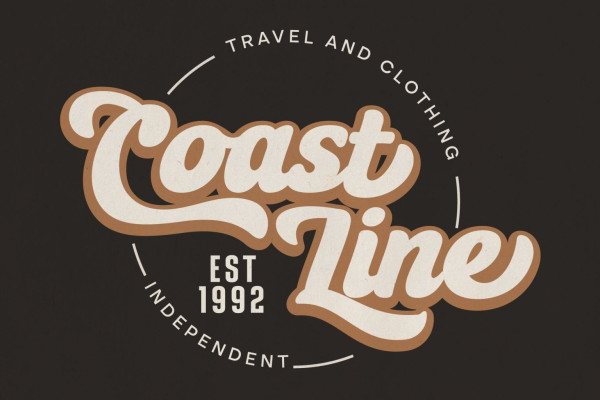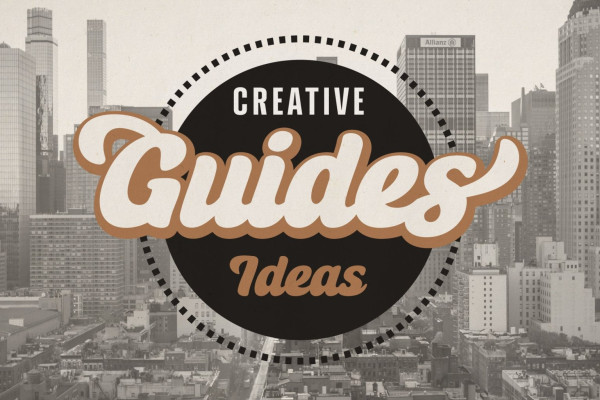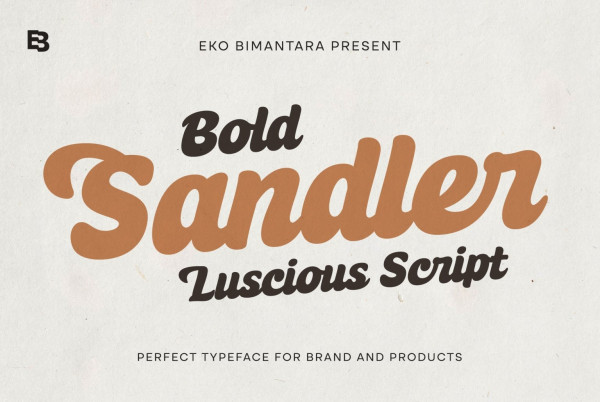
Sandler Script Font
Sandler Script Font is a bold, soft, and warm script font that is perfect for branding, titles, and headers. It has a modern script style with carefully crafted letterforms that give it a luxurious and refined feel. The font is available in two styles: Sandler Regular Script and Sandler Extrude.
Sandler Script is the more versatile of the two styles. It is a smooth and flowing script that is perfect for use in a variety of contexts. It would be a great choice for logos, branding, and packaging. Sandler Extrude is a more textured and dimensional style that has a bit of a retro feel. It would be a great choice for headlines, headers, and other applications where you want to create a statement.